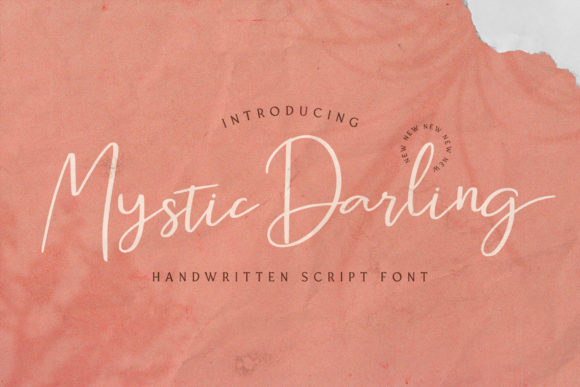
Journey into the realm of timeless elegance with Mystic Darling Font, a captivating script font that exudes charm and sophistication. StringLabs, the creative minds behind this masterpiece, have crafted a font that pays tribute to the enduring allure of traditional calligraphy, while infusing it with a touch of modern flair.
Mystic Darling's graceful curves and intricate flourishes evoke a sense of romance and nostalgia. Each letter dances across the page like a handwritten note from a bygone era, carrying with it a hint of mystery and intrigue. Whether you're designing wedding invitations, branding materials, or social media posts, Mystic Darling will add an air of refinement and distinction to your creations.
With its versatile nature, Mystic Darling can effortlessly adapt to a wide range of design styles. Its delicate strokes and elegant serifs lend themselves beautifully to logos, letterheads, and business cards, creating a lasting impression of professionalism and sophistication. Unleash your creativity and explore the endless possibilities that Mystic Darling holds.
Transport yourself to a world of whimsical enchantment with Mystic Darling's ligatures and alternate characters. These special features allow you to add a touch of playfulness and personality to your designs. Experiment with different combinations to create unique and eye-catching text that will captivate your audience.
Make a bold statement with Mystic Darling's stunning logotype designs. This font shines when used for creating logos that demand attention. Its distinctive style and timeless appeal make it the perfect choice for businesses and individuals looking to leave a lasting impression. Elevate your brand identity and stand out from the crowd with Mystic Darling.